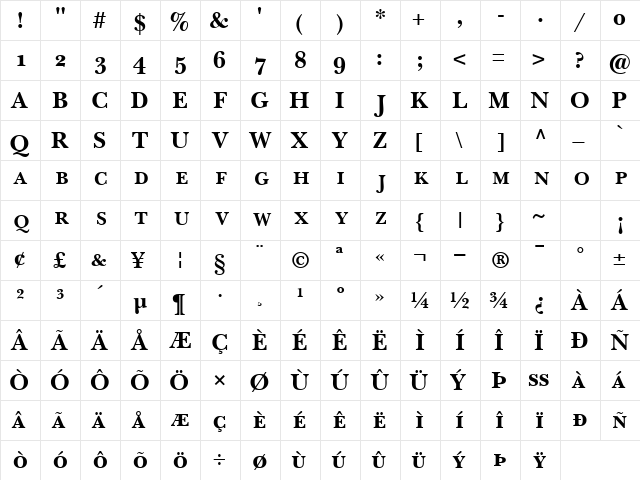
BaskervilleSCapsSSK Bold
Design Context for BaskervilleSCapsSSK Typeface
BaskervilleSCapsSSK takes a measured approach to typography — its balanced proportions and neutral character make it a reliable workhorse for both digital and print work. The heavy weight commands attention and anchors typographic hierarchies.